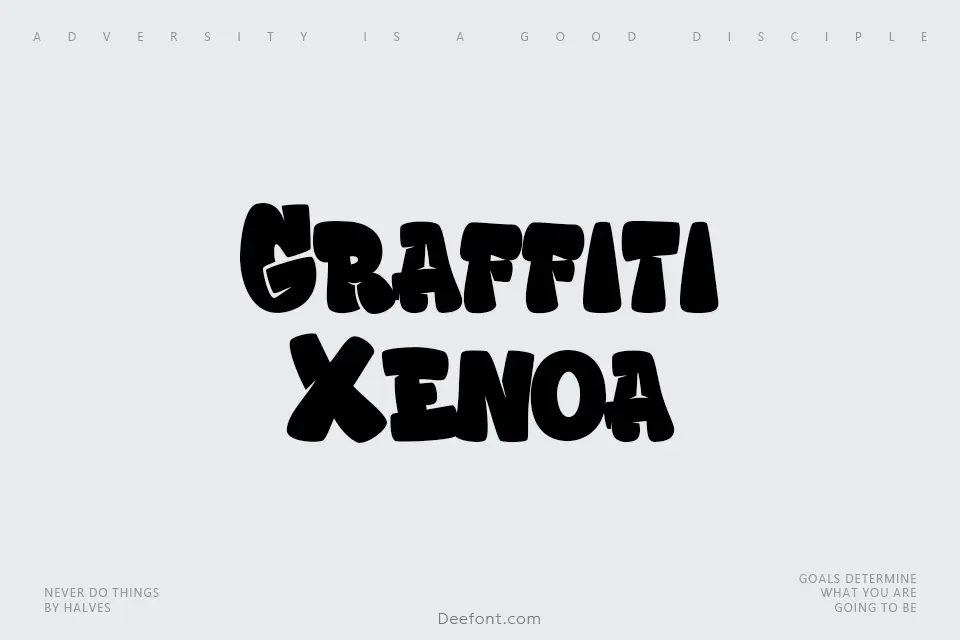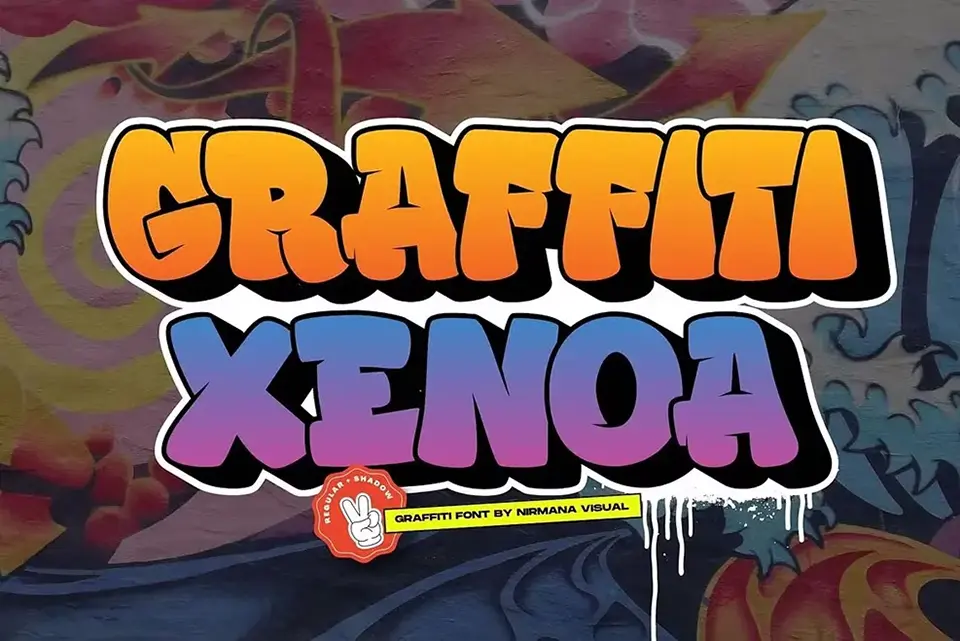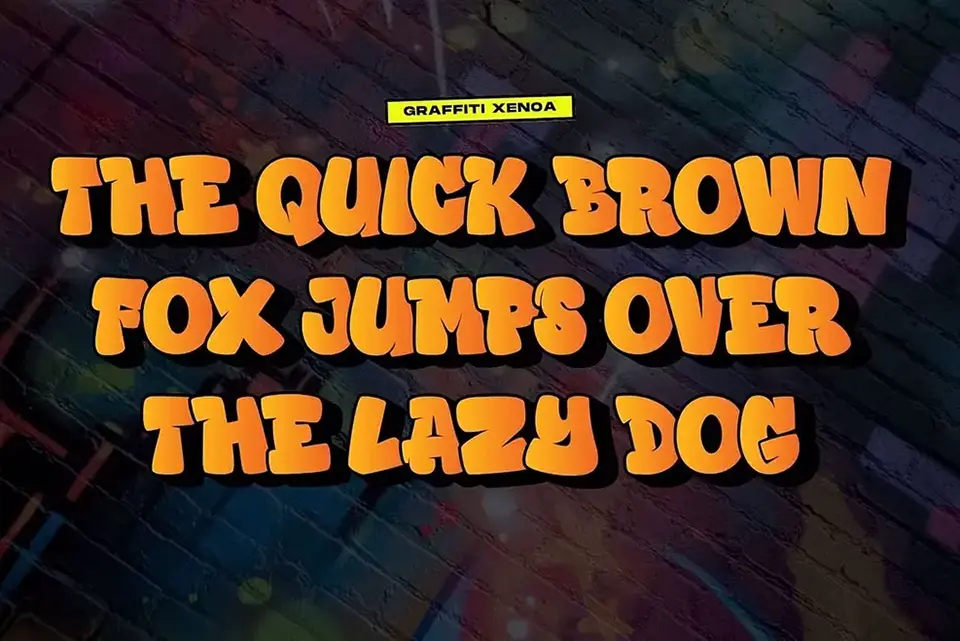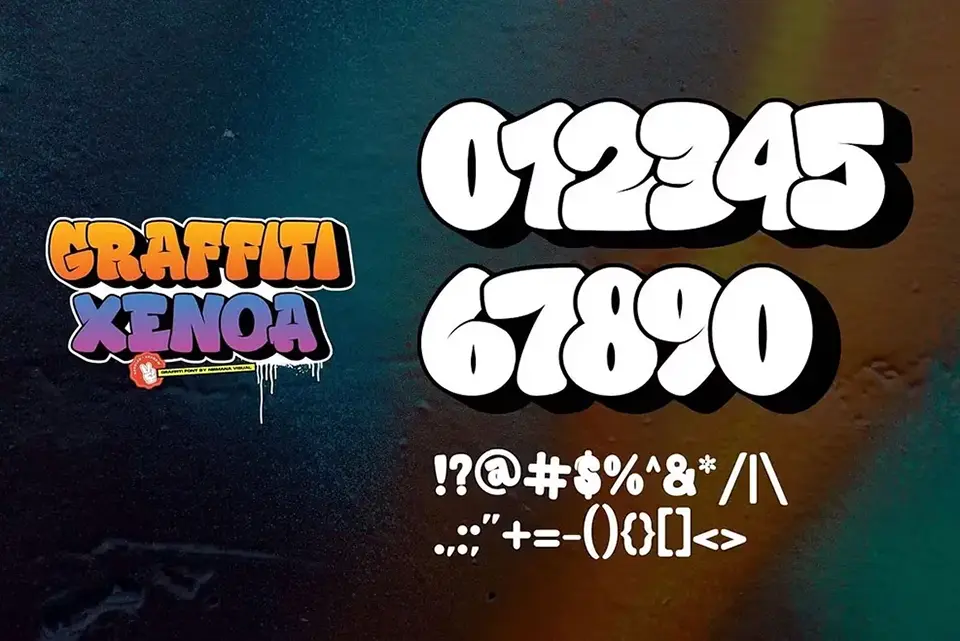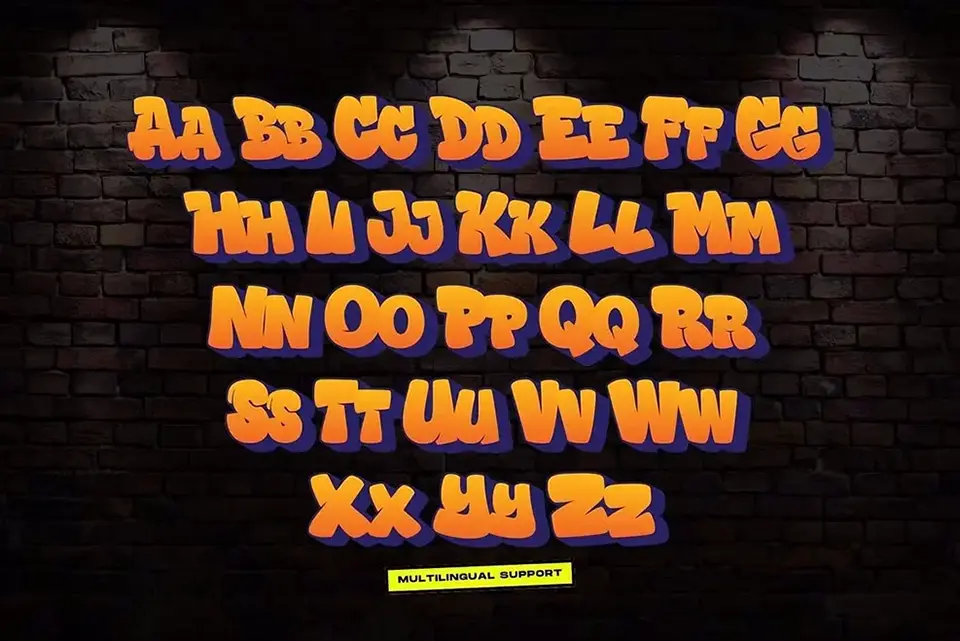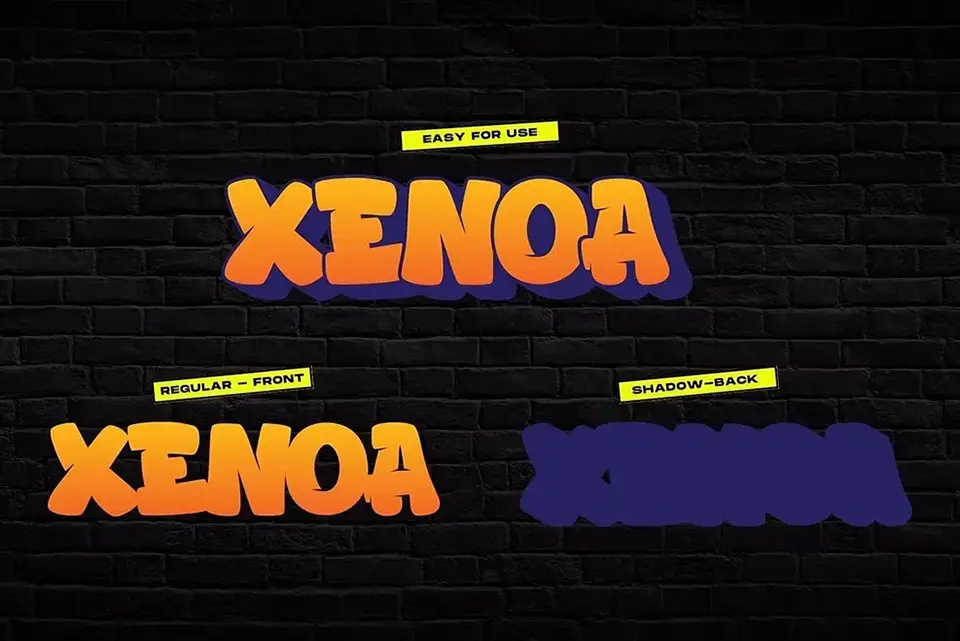
Graffiti Xenoa Font
Graffiti Xenoa is a bold, rounded graffiti-style display font characterized by its playful and energetic appearance with thick, bubbly letters. This dynamic typeface features exaggerated curves and an informal look that stands out with movement and energy. Perfect for creative and artistic projects including street art designs, urban-themed posters, music album covers, skateboard designs, and creative branding initiatives. The font maintains consistent style across uppercase, lowercase letters, numbers and special characters with a cohesive design that creates a strong visual impact suitable for headlines and eye-catching displays.